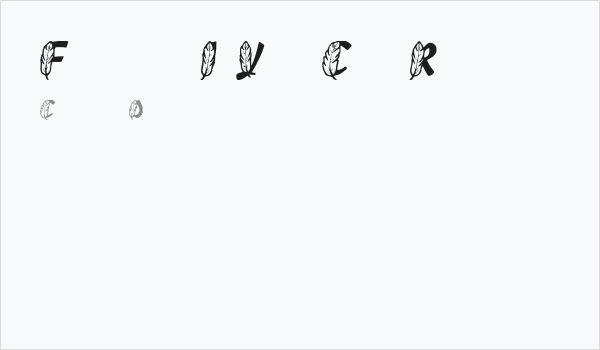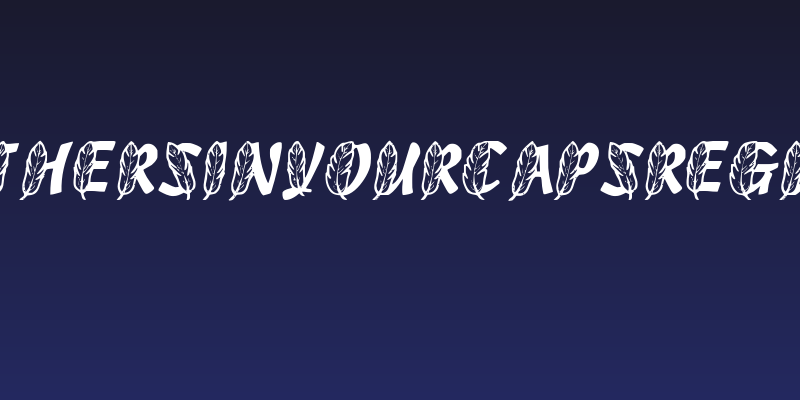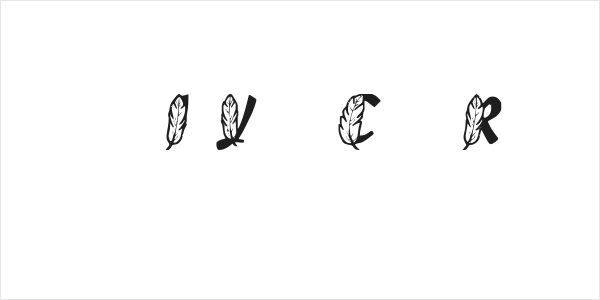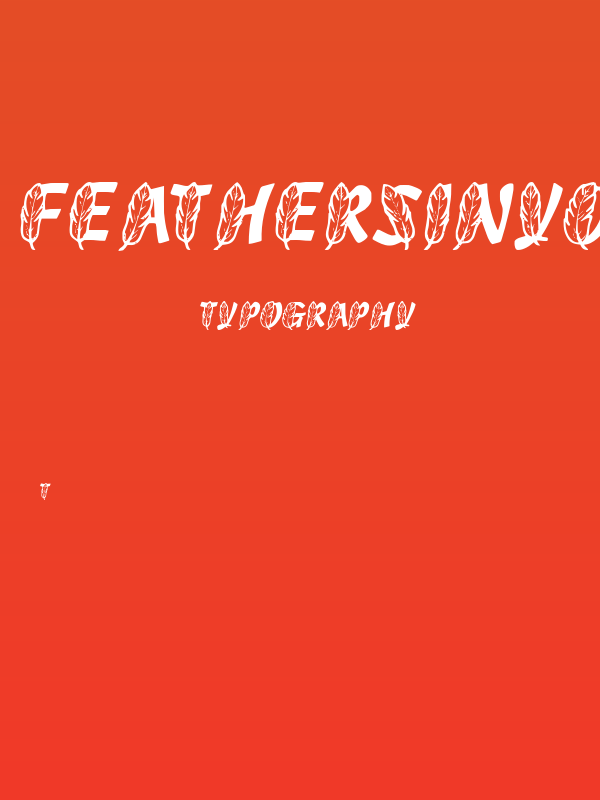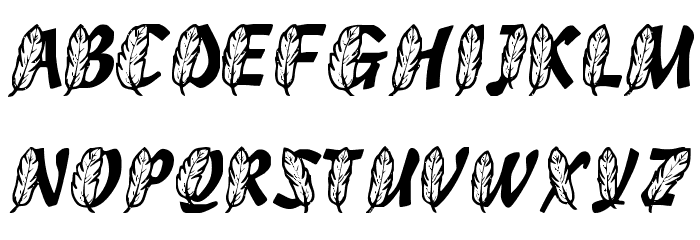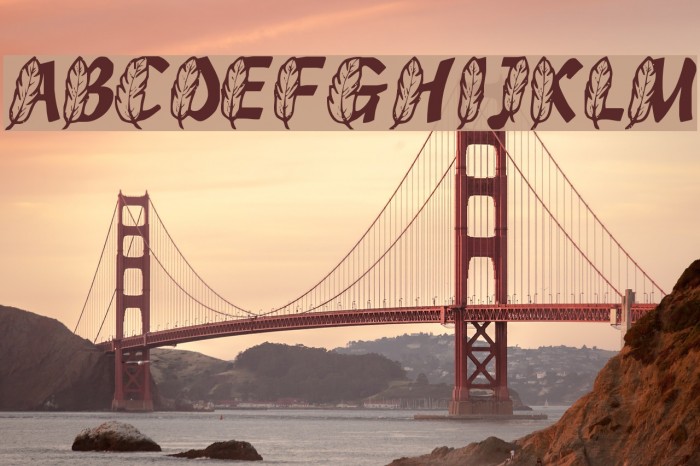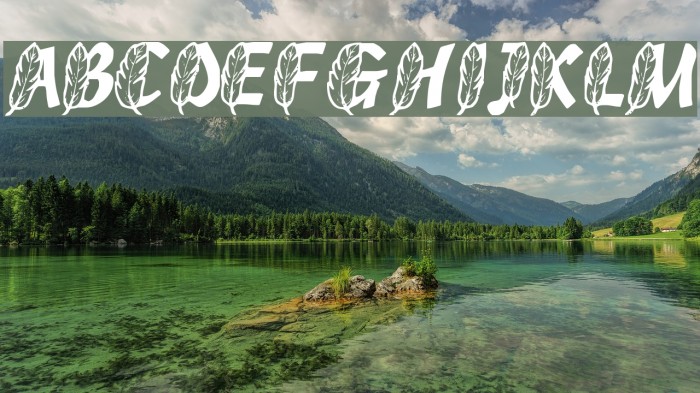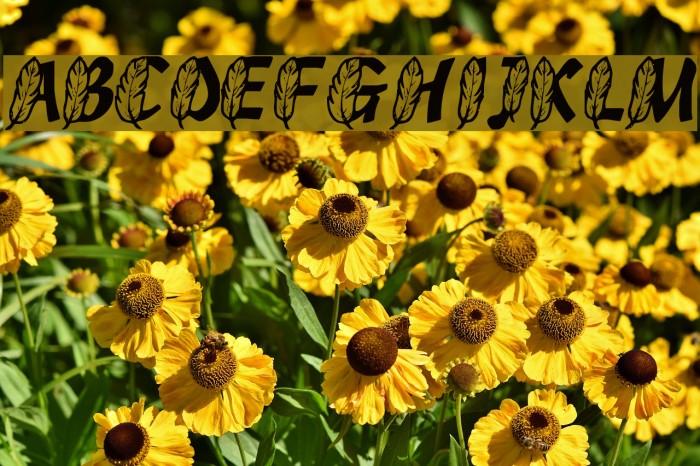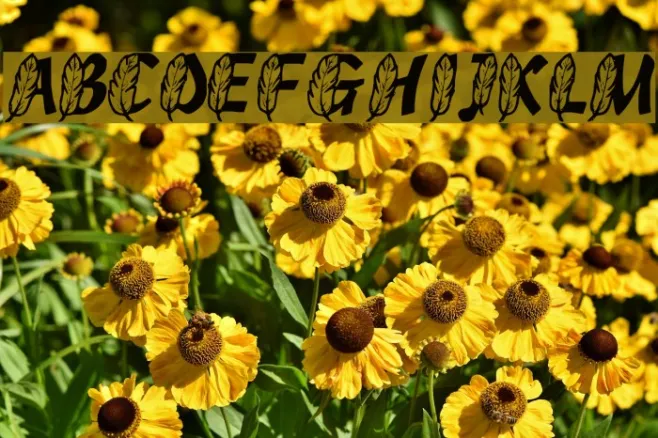
FeathersInYourCapsRegular Font
FeathersInYourCapsRegular Description
This font features a unique and decorative style, with each letter adorned by intricate feather designs. The letters are bold and have a playful, artistic flair, making them stand out with their detailed embellishments. The feather motif adds a whimsical and natural touch, creating a sense of movement and elegance. This font is ideal for projects that require a creative and eye-catching aesthetic, as it combines both artistic expression and readability.